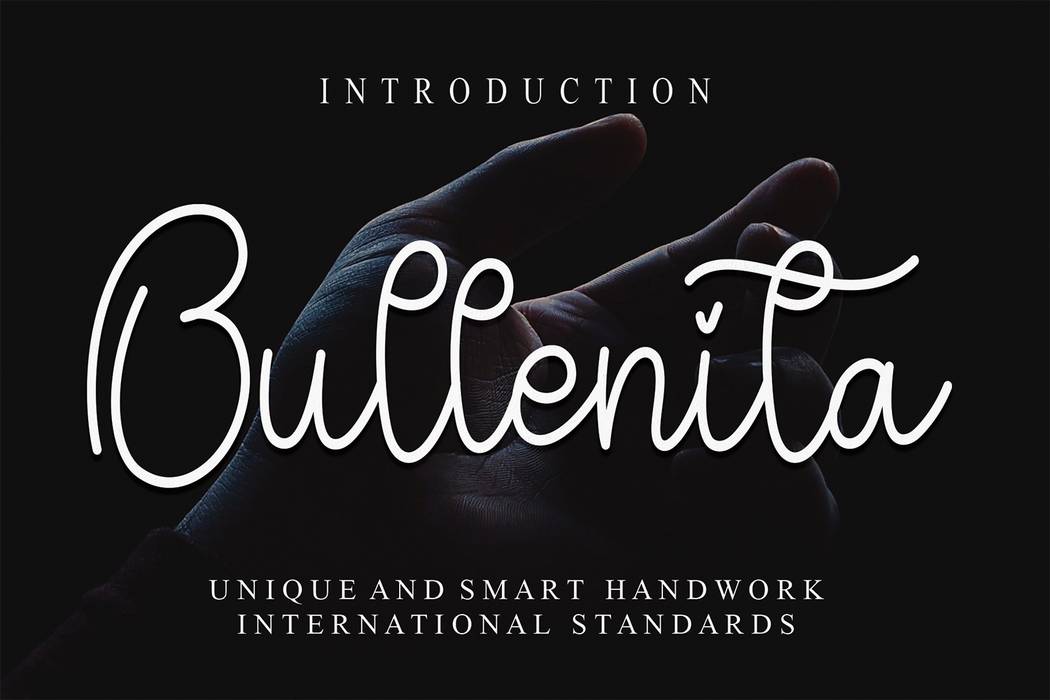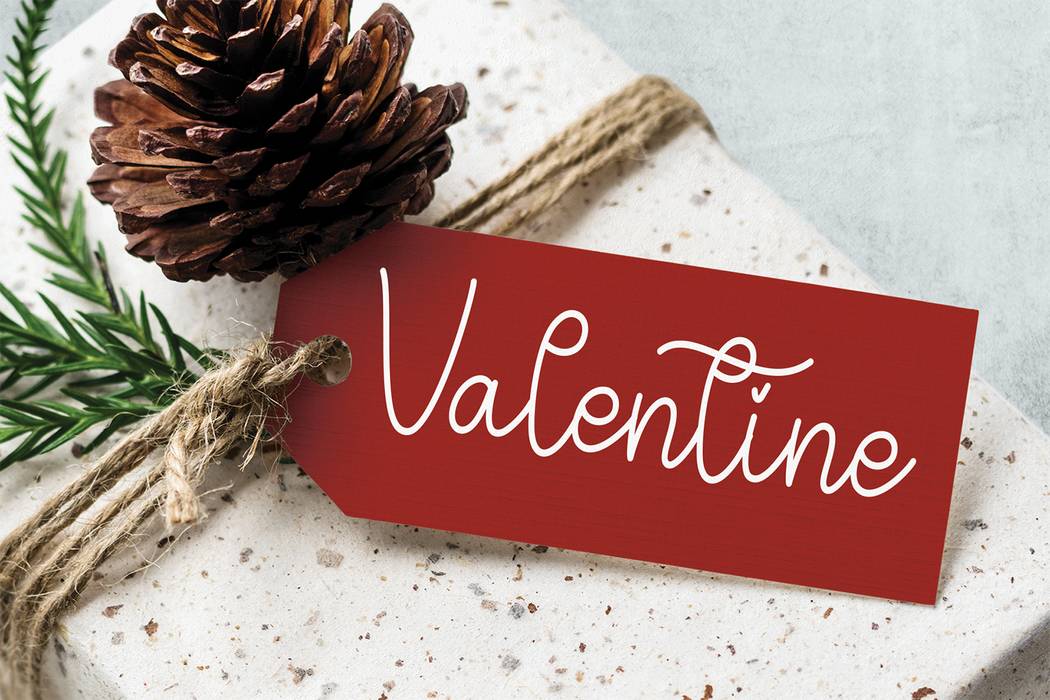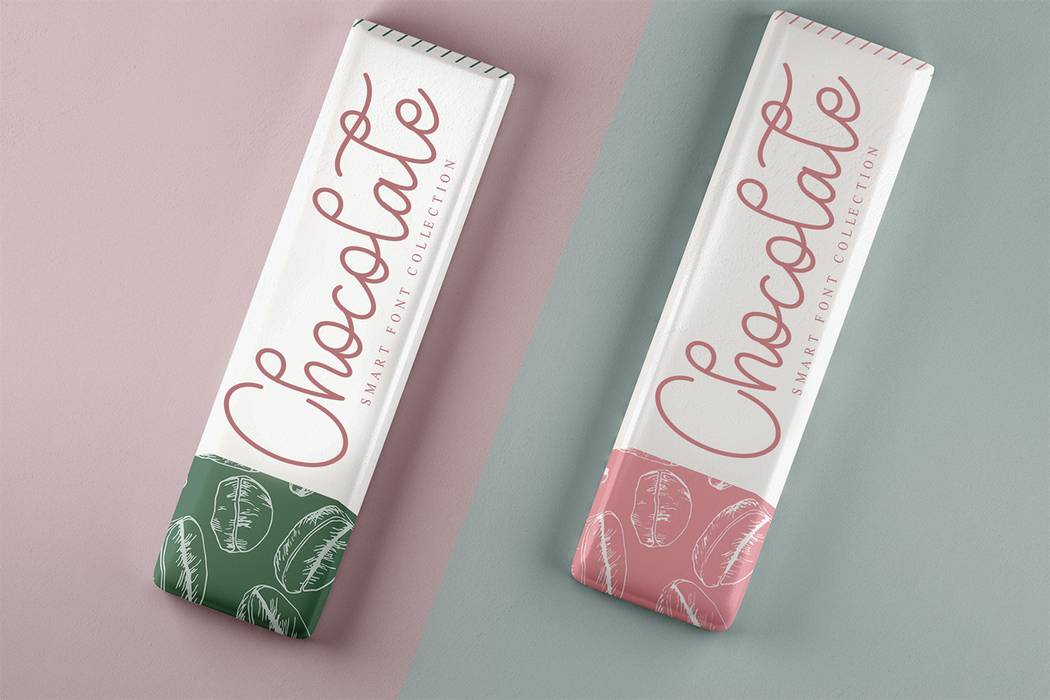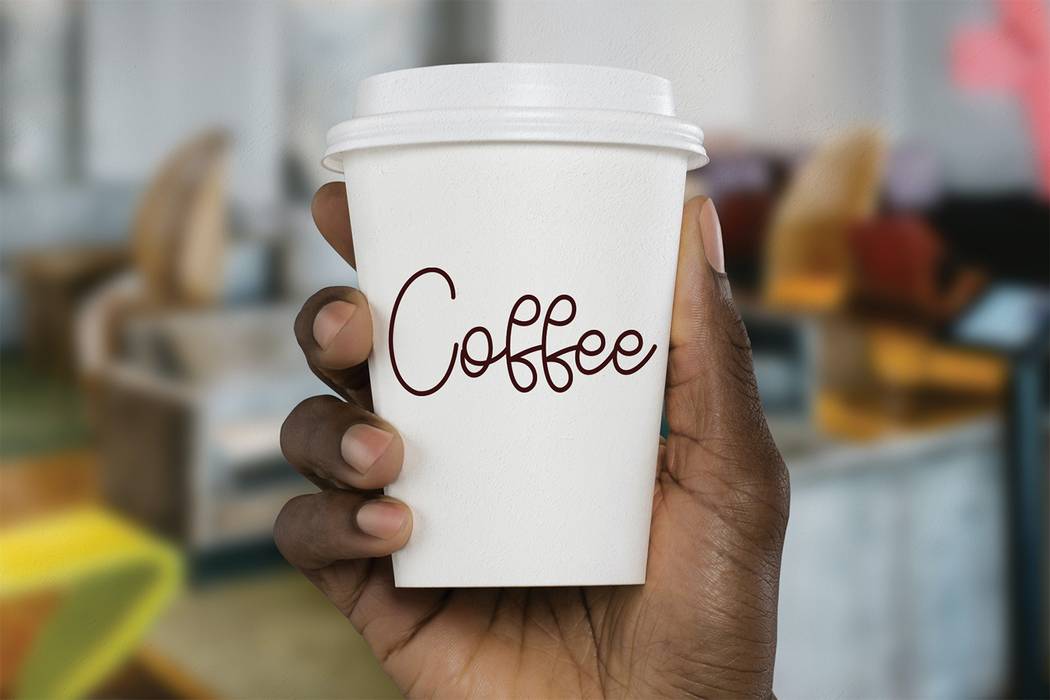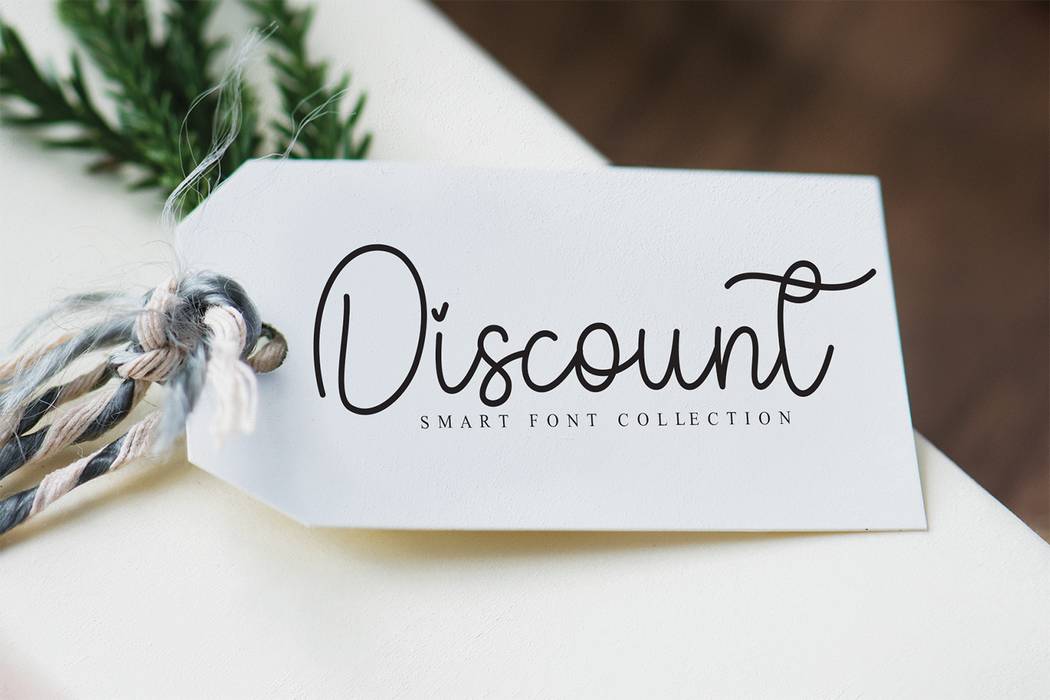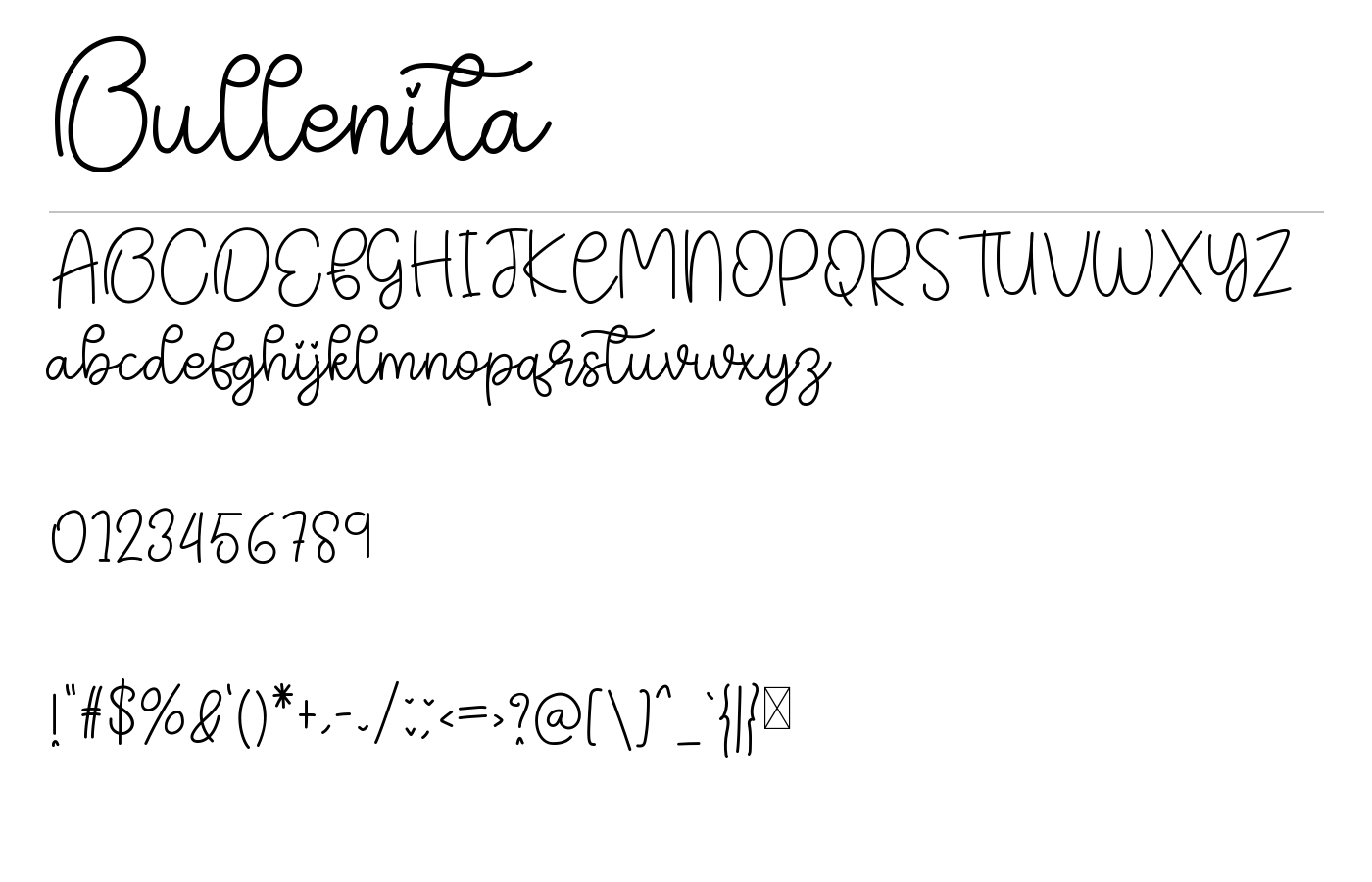
Bullenita is a light, playful script font with a handwritten, casual feel characterized by its slender strokes and gently looping letterforms. Its clean, airy style and upright posture make it perfect for informal branding, invitations, and creative projects seeking a friendly, approachable tone. This font works well in headlines and decorative text, where its whimsical charm can shine without losing readability.
Bullenita Font
About Bullenita Font